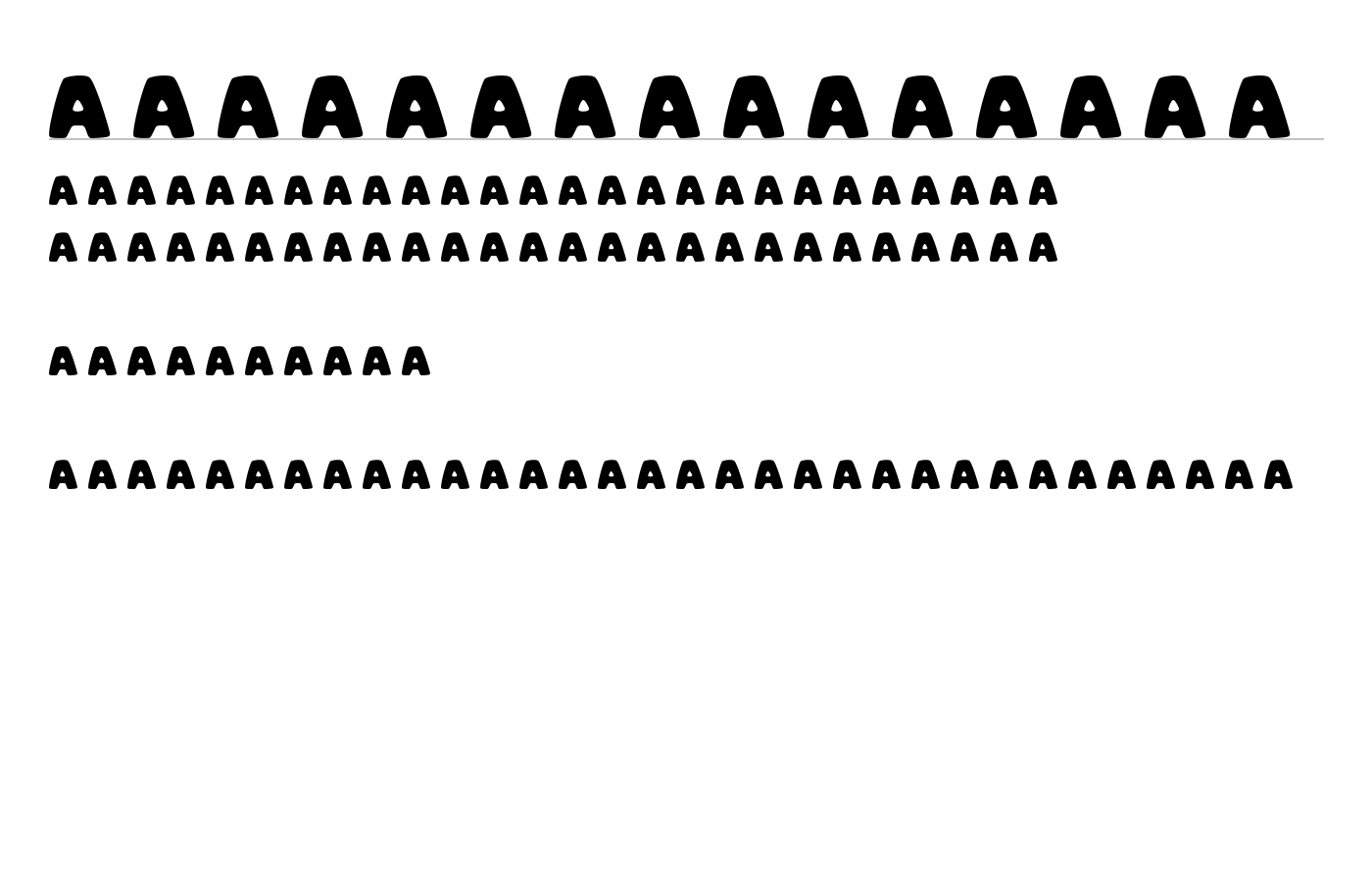
ARCO Typography is a bold, playful sans serif font with a rounded, chunky design that brings a friendly and approachable vibe to any project. Its wide and soft letterforms make it ideal for eye-catching headlines, logos, and packaging that want to convey warmth and creativity. This font works great for brands aiming for a fun, informal, and modern personality.
ARCO Typography Font